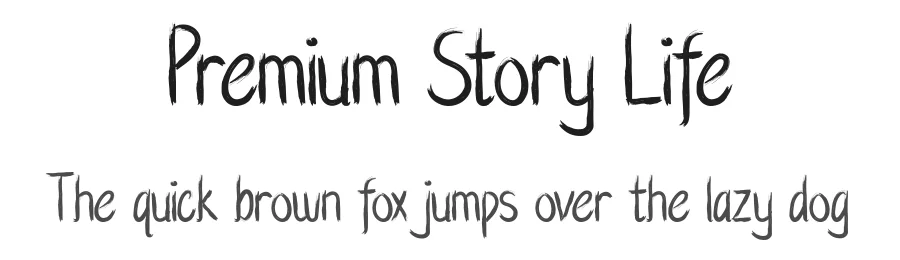
About KG Teacher Jordan Font
KG Teacher Jordan is a handwritten script font by Kimberly Geswein. This regular-weight typeface includes 338 glyphs and supports 267+ Latin-based languages, making it accessible for international projects. The handwritten quality gives it warmth and personality that works especially well for personal creative work. Wedding invitations, thank you card suites, and scrapbooking layouts all benefit from the organic letterforms. Social media graphics and hand-drawn aesthetic projects also pair naturally with this font's casual charm.
Choose KG Teacher Jordan when you want a handwritten font that doesn't sacrifice readability for personality. Compared to more neutral script fonts, this typeface adds genuine warmth to personal projects while remaining clear enough for body text applications. The hand-drawn quality makes it a natural fit for anything where you'd want text to feel personally created rather than machine-generated.
KG Teacher Jordan Font is a script font that shines as a display or heading face. Pair it with a clean sans-serif or serif font for body text β the contrast creates a clear hierarchy while the two styles stay balanced and easy to read.